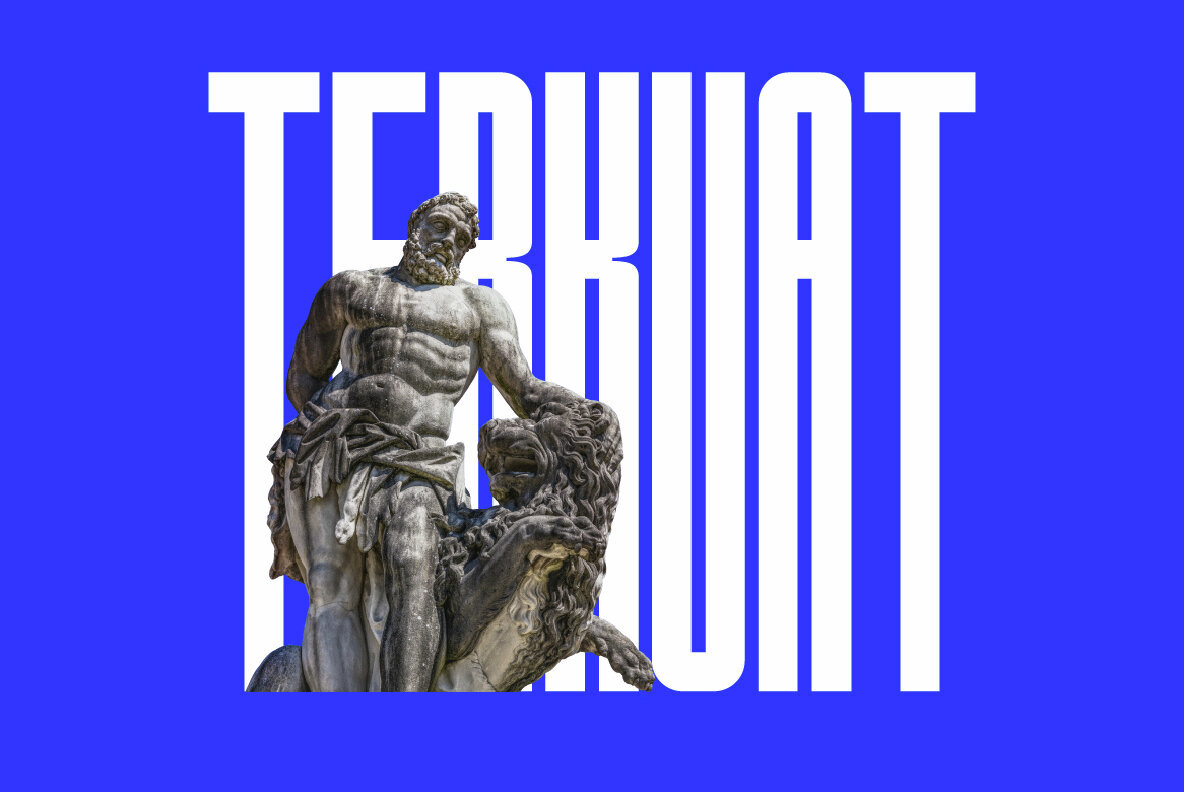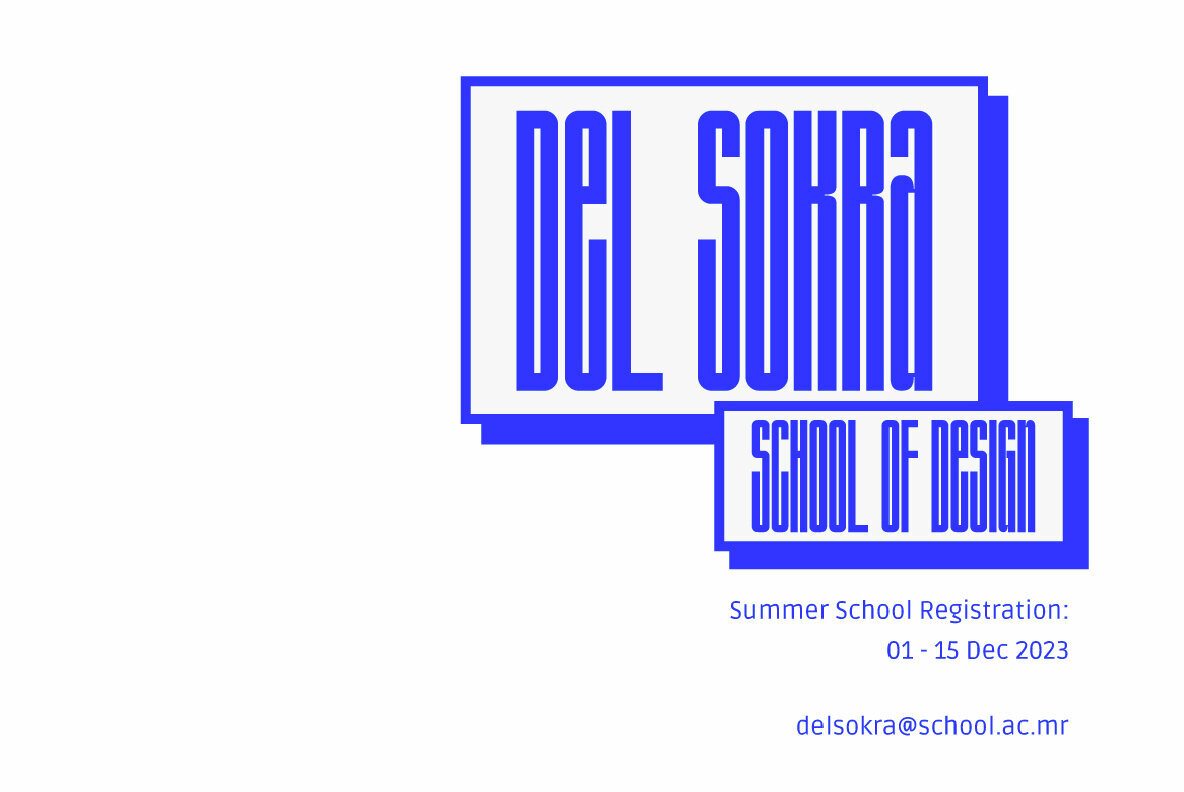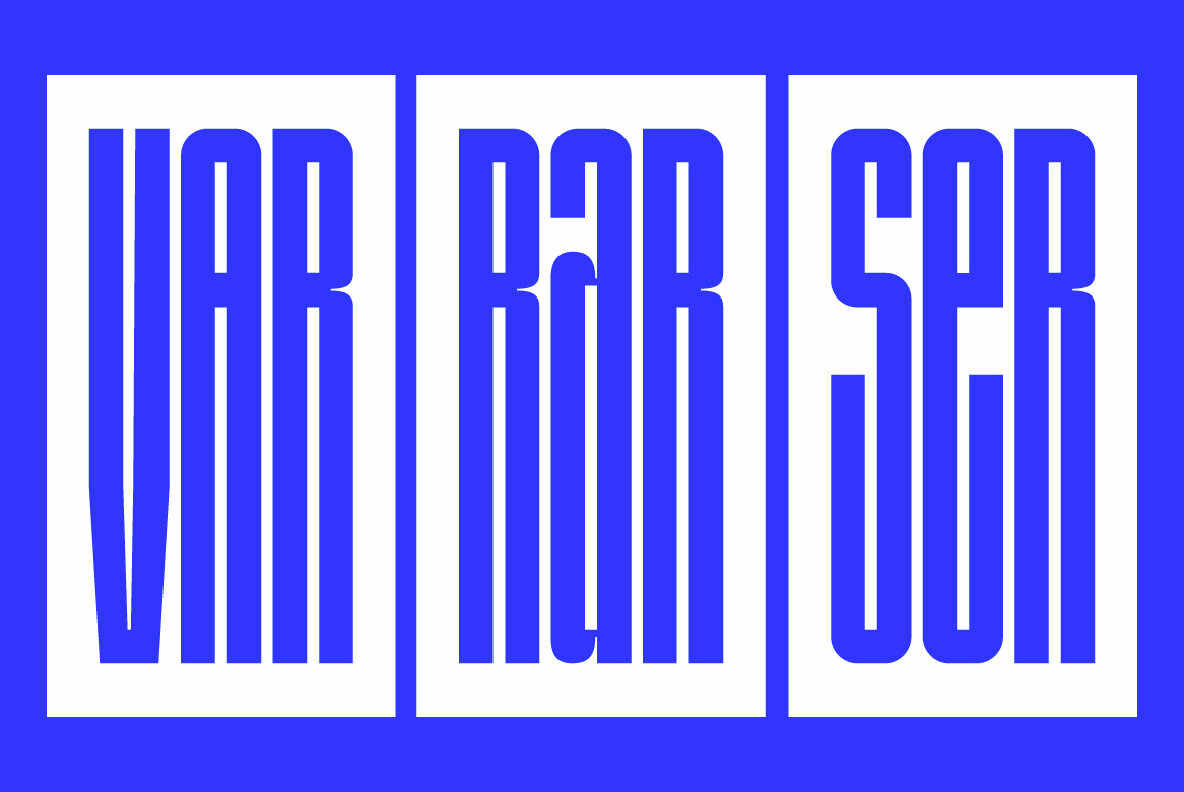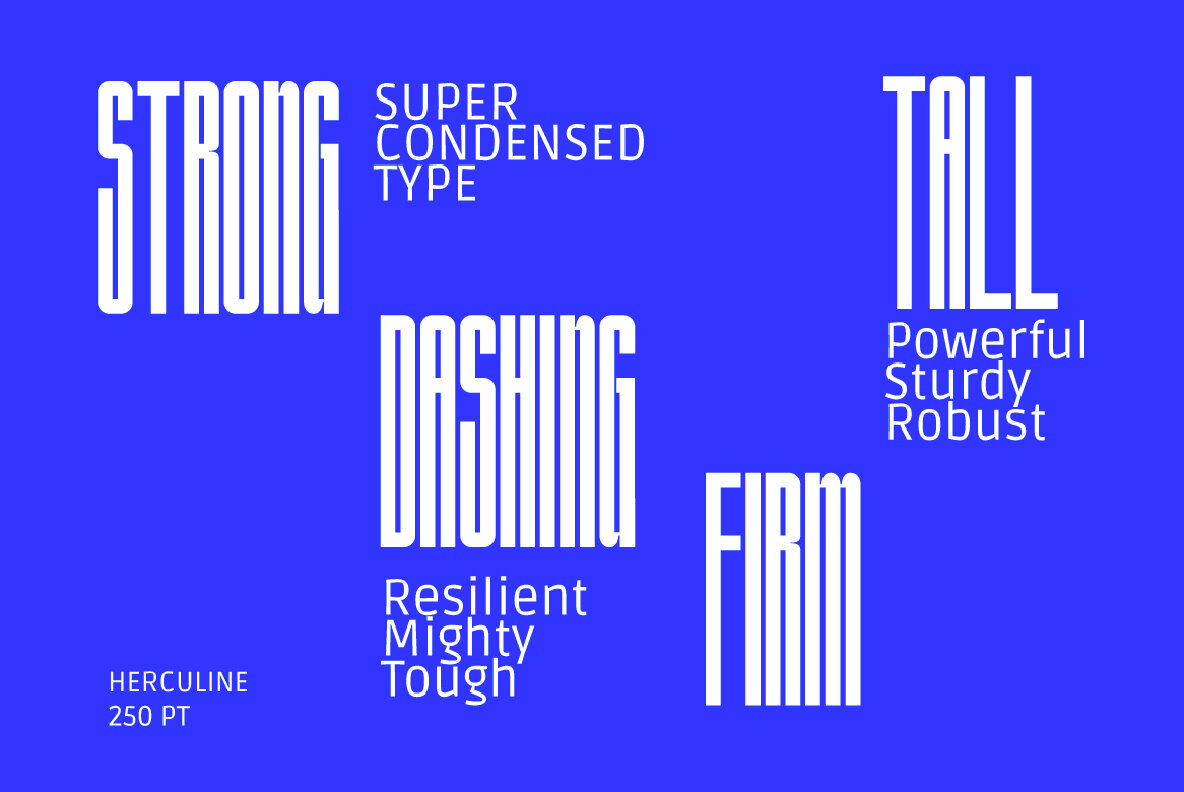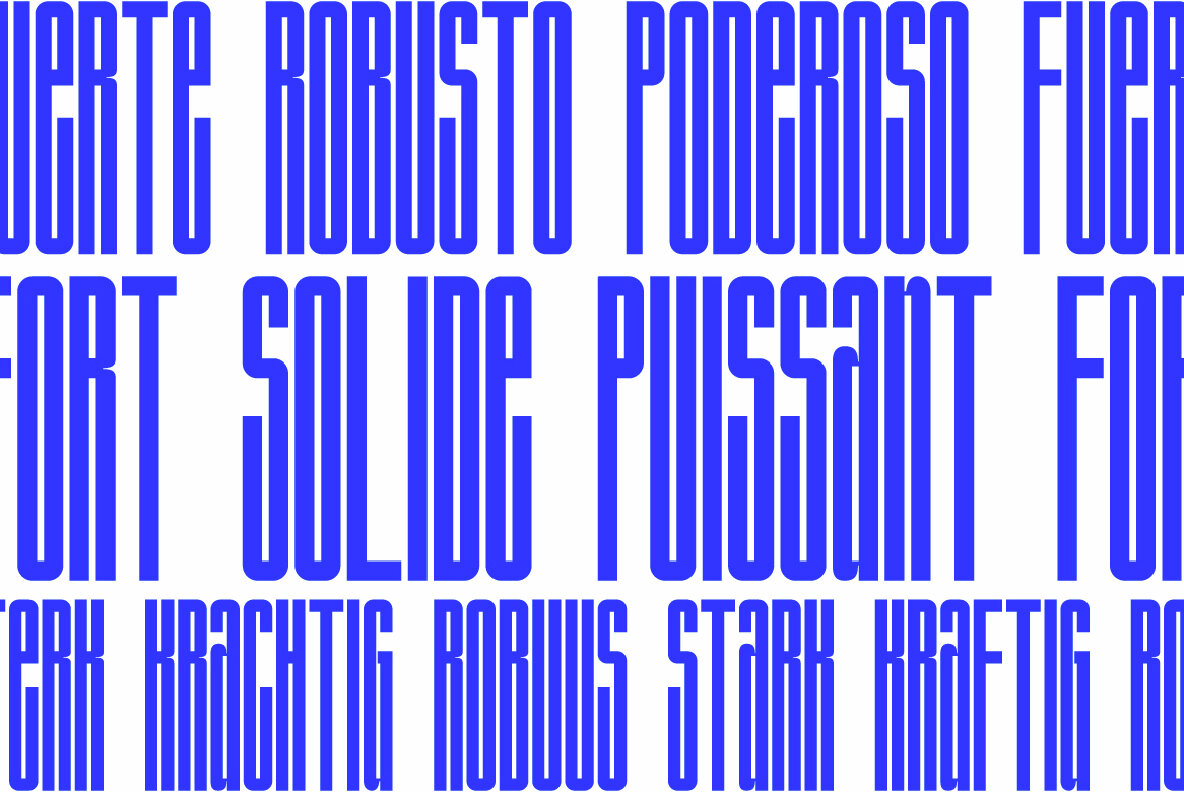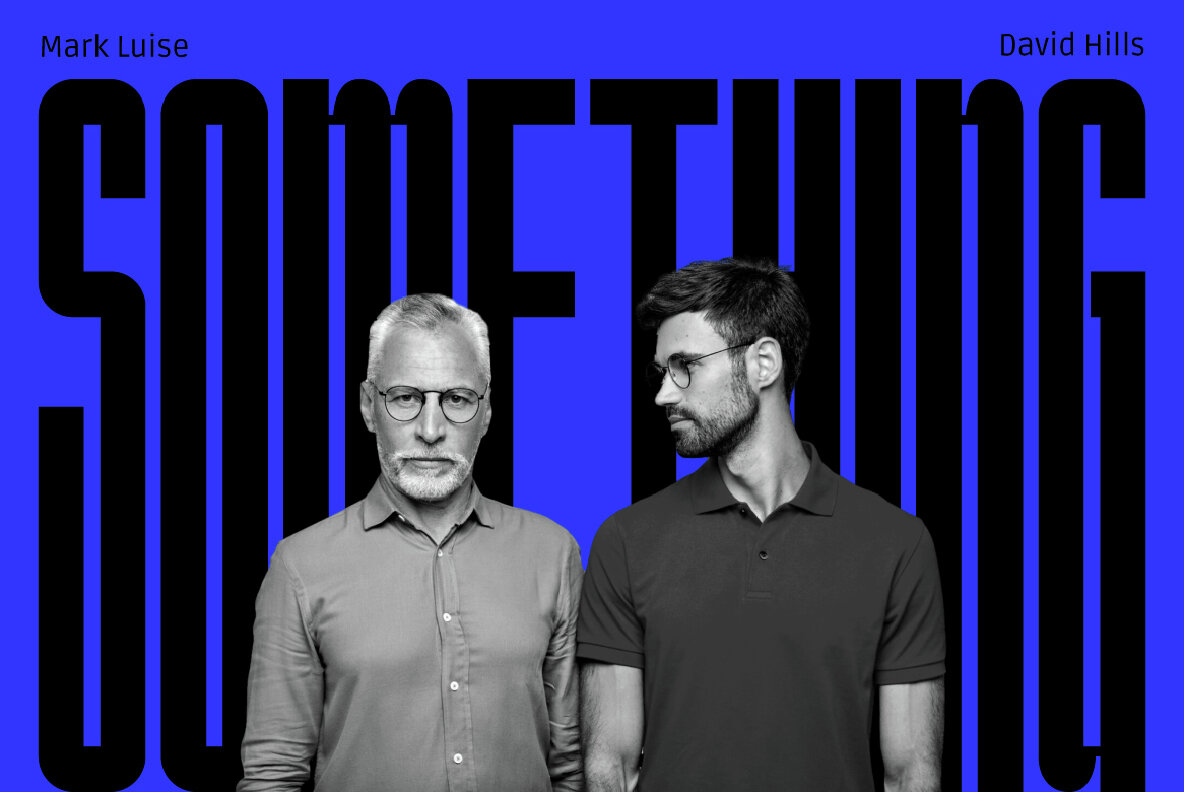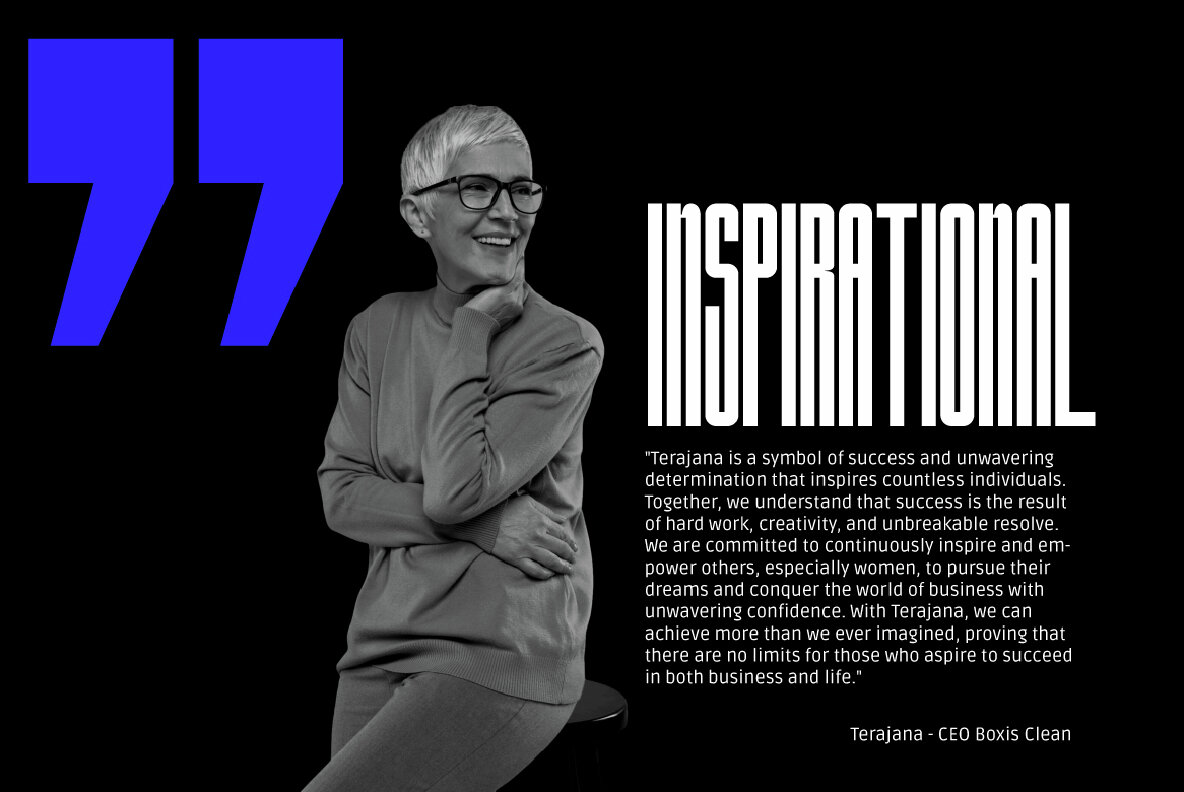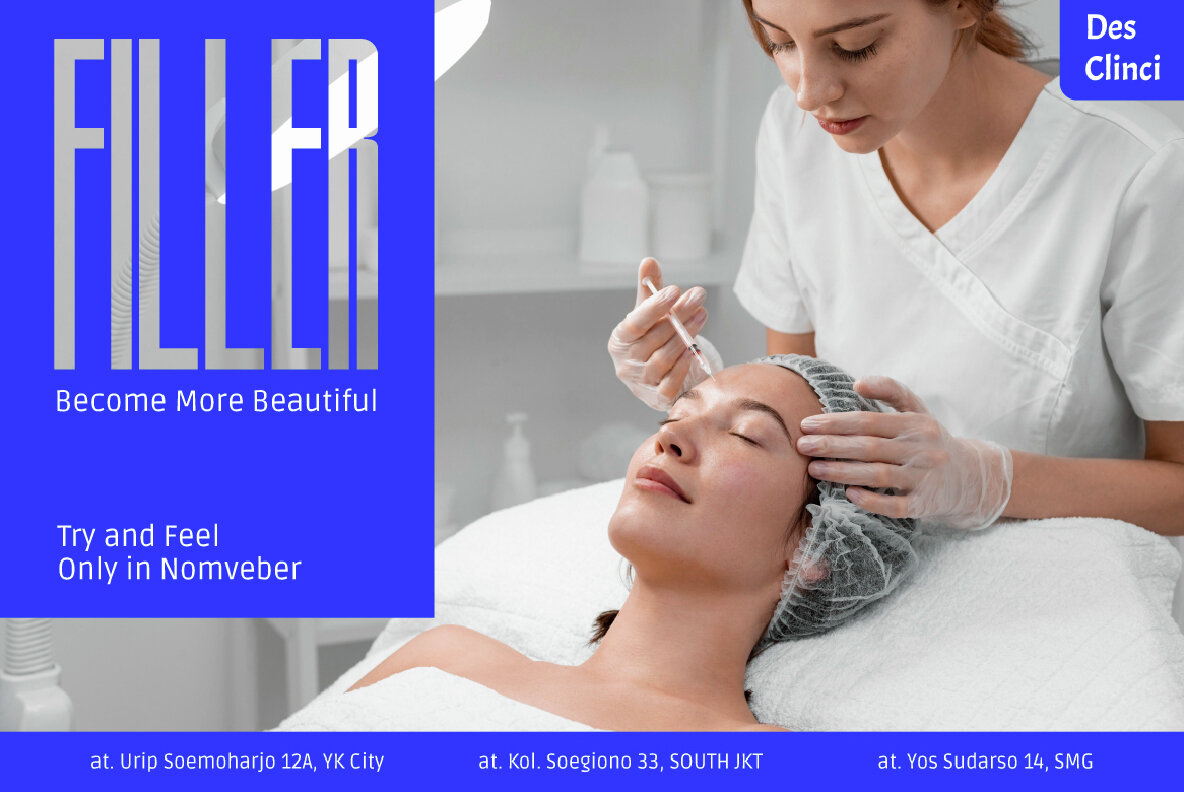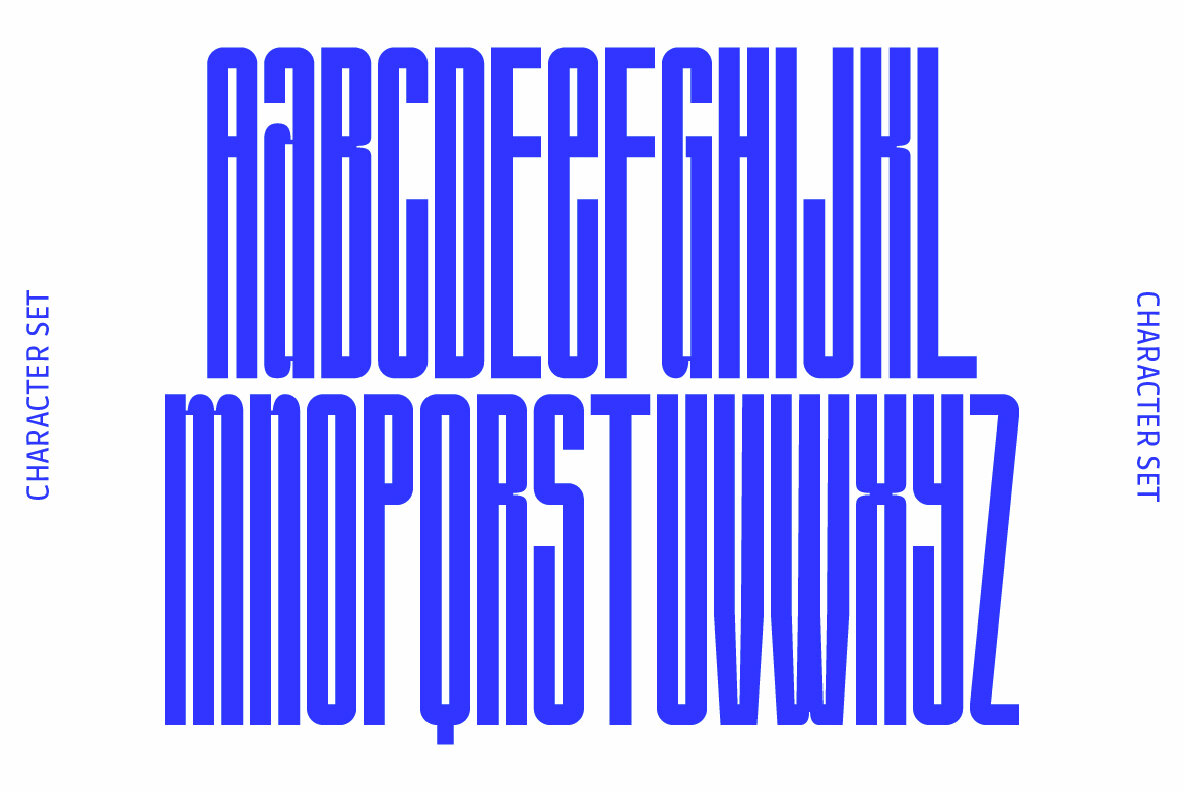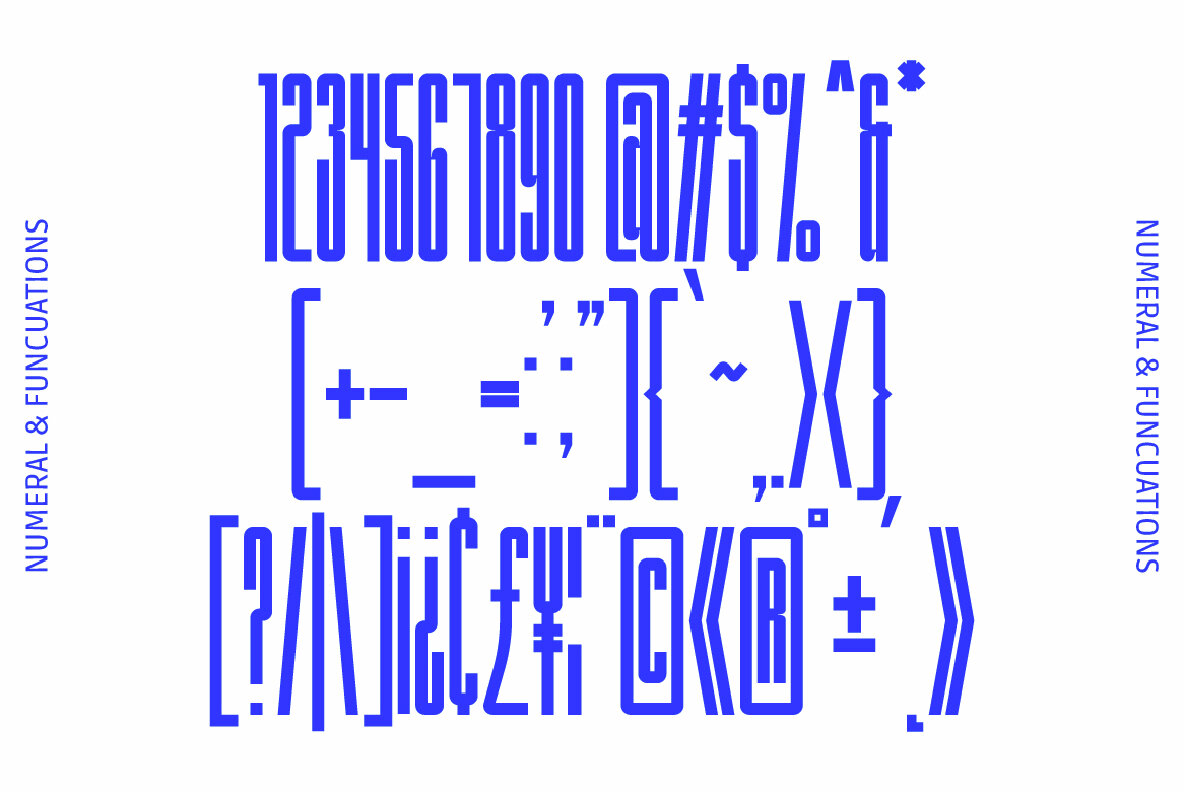
Herculine Font
Herculine Regular
Herculine is an extraordinary display font that takes the concept of condensed typography to new heights, quite literally. This font boasts an ultra-condensed and towering design, making it a standout choice for modern, clean, and sleek design projects. The tall and slender letterforms of "Herculine" give it a distinctive and commanding presence. Its super-condensed nature allows for efficient space utilization and a unique aesthetic that's perfect for attention-grabbing headlines, film, cover magazine and branding materials. With a clean and modern look, "Herculine" exudes a sense of sophistication and professionalism, making it an ideal choice for projects that require a contemporary touch. Whether you're working on posters, banners, or any design that demands a bold, clean, and ultra-modern appearance, "Herculine" will help your creations stand out in style. This font's exceptional design will leave a lasting impression on your audience, making it a versatile addition to your design toolkit.